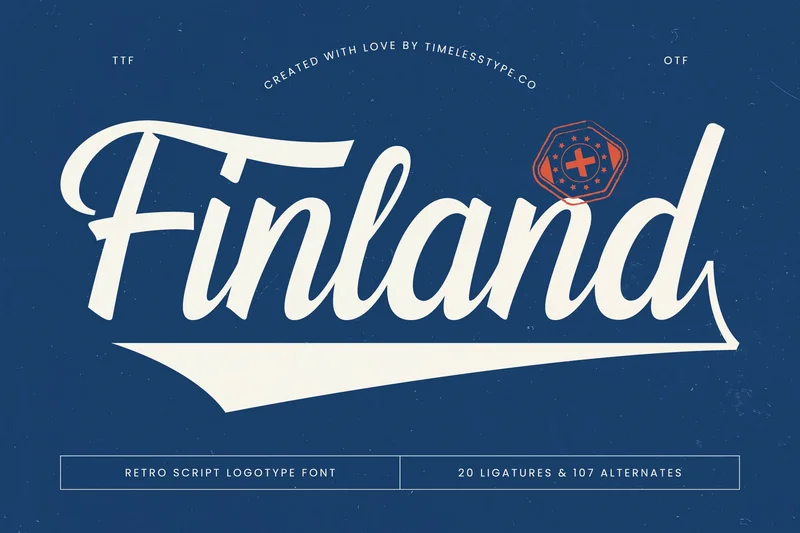
Finland – Retro Script Logotype Font
Finland is a retro script logotype font that captures the spirit of classic sign-painting, athletic branding, and vintage travel aesthetics. With 20 ligatures and 107 alternates, this typeface gives you full stylistic control to build smooth swashes, expressive tails, and nostalgic letterflows that feel energetic and authentic.
Its bold yet elegant strokes make Finland perfect for logos, sports merchandise, retro packaging, prints, posters, café branding, and standout headline typography. Whether you’re designing for a throwback theme or building a clean modern-retro identity, Finland delivers timeless charm with professional craftsmanship.